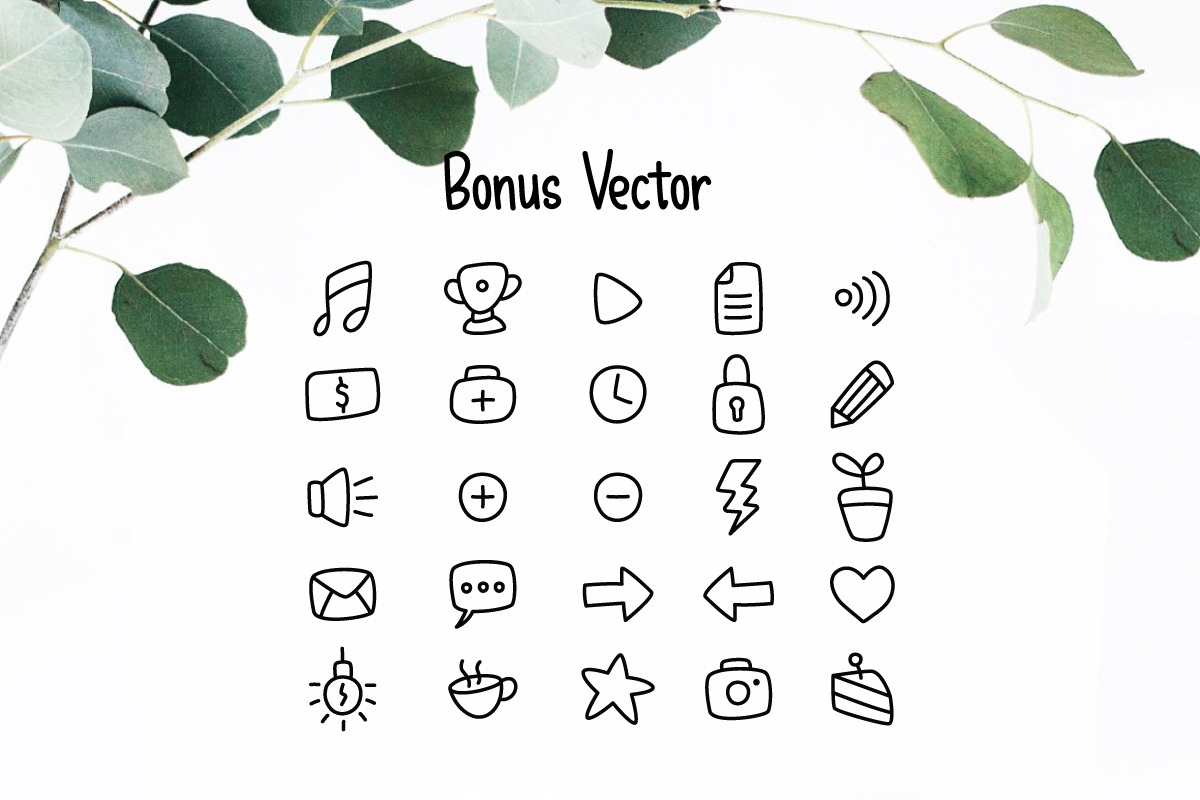
Happy Monday
Happy Monday is a hand written font . Very cool for logos, name tag, handwritten quotes, product packaging, merchandise, social media & greeting cards. And very easy to make design t-shirts and other products. Very save time in making the design of a product. It contains a full set of lower & uppercase letters, a large range of punctuation, numerals, and multilingual support.
- Multilingual support (Danish, Finnish, English, Spanish, Dutch, German, Icelandic, Italian, Norwegian, Portuguese, Indonesian, Swedish)